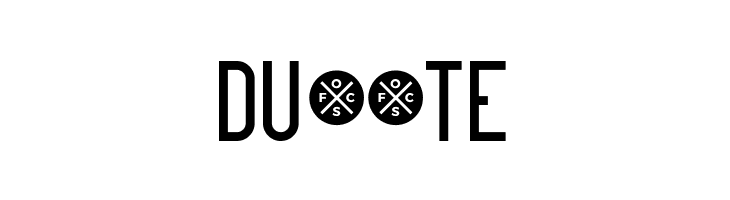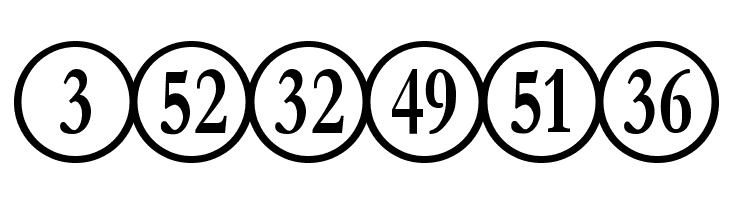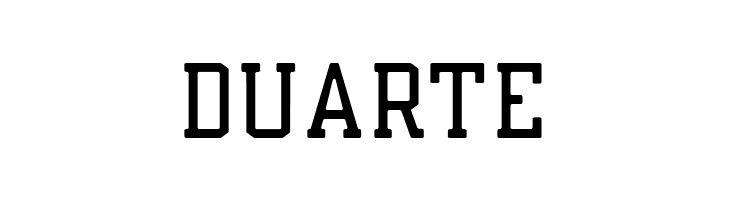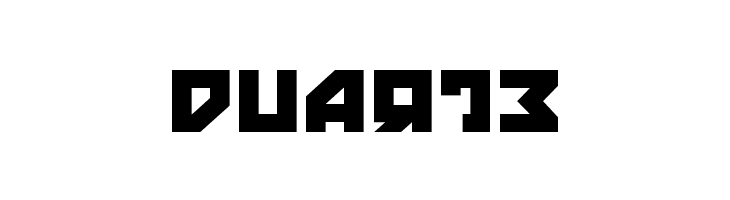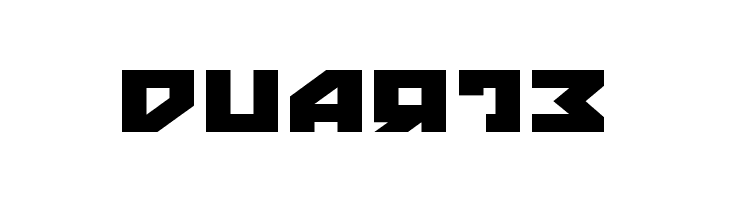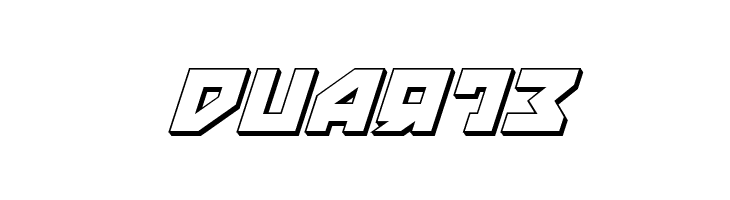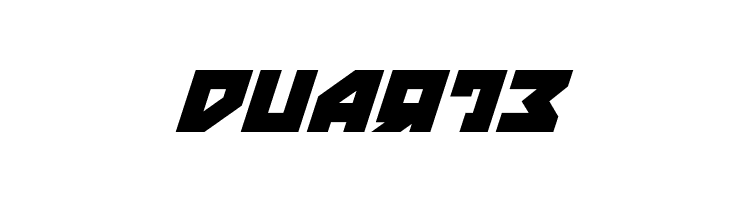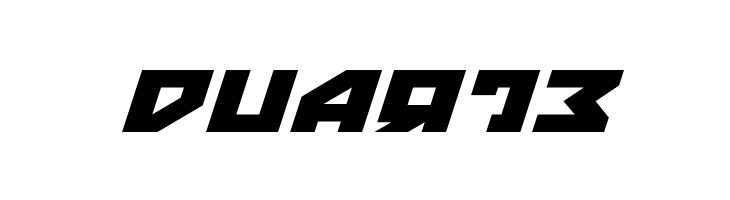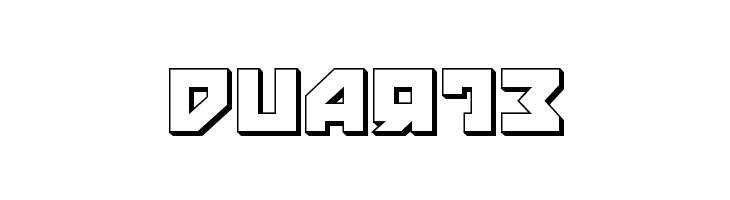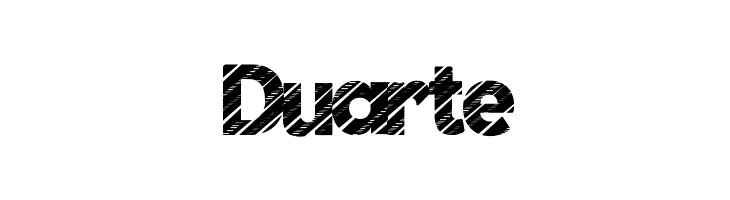
A bold, geometric font with a three-dimensional, industrial look.
A bold, geometric font with a modern and assertive style.
A geometric, monospaced font with thin lines and a modern aesthetic.
A modern, italicized font with a sleek and professional appearance.
A bold, modern sans-serif typeface with uniform strokes and excellent readability.
A sleek, italicized font with a modern and elegant style.
A modern, geometric sans-serif font with uniform character width and clear readability.
A modern, italic sans-serif font with a sleek and dynamic style.
A bold, modern font with clean lines and strong visual impact.
A bold, italicized font with strong, dynamic strokes.
A bold, italic font with a modern and dynamic style.
A sleek, italicized font with thin, elongated characters for a modern look.
A modern, geometric font with thin, uniform strokes and a minimalist style.
A bold, dynamic script font with angular uppercase and fluid lowercase letters.
A bold, angular script font with a dynamic and energetic style.
A bold, flowing script font with elegant cursive letterforms.
A bold, italicized font with a dynamic and futuristic style.
A bold, geometric font with a modern and authoritative style.
A minimalist, geometric font with clean lines and a modern aesthetic.
A minimalist, geometric font with a modern and futuristic style.
A vintage typewriter-style font with a distressed, authentic texture.
A rugged, hand-drawn font with a vintage, organic feel.
A bold, decorative font with outlined characters and a playful style.
A bold, decorative font with a unique outline effect and playful design.
A classic serif font with a textured, vintage appearance.
A textured, hand-drawn serif font with a rustic and organic feel.